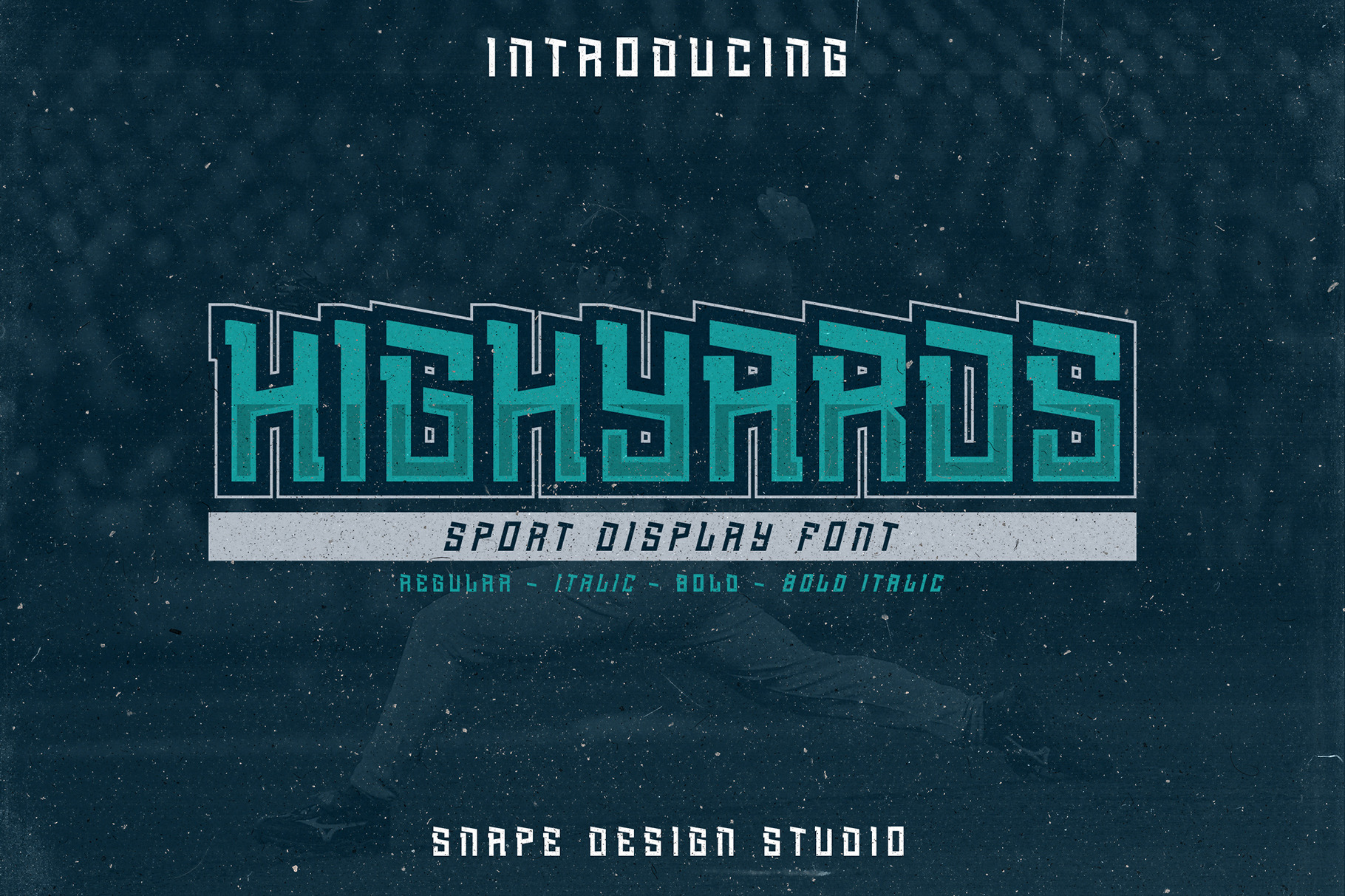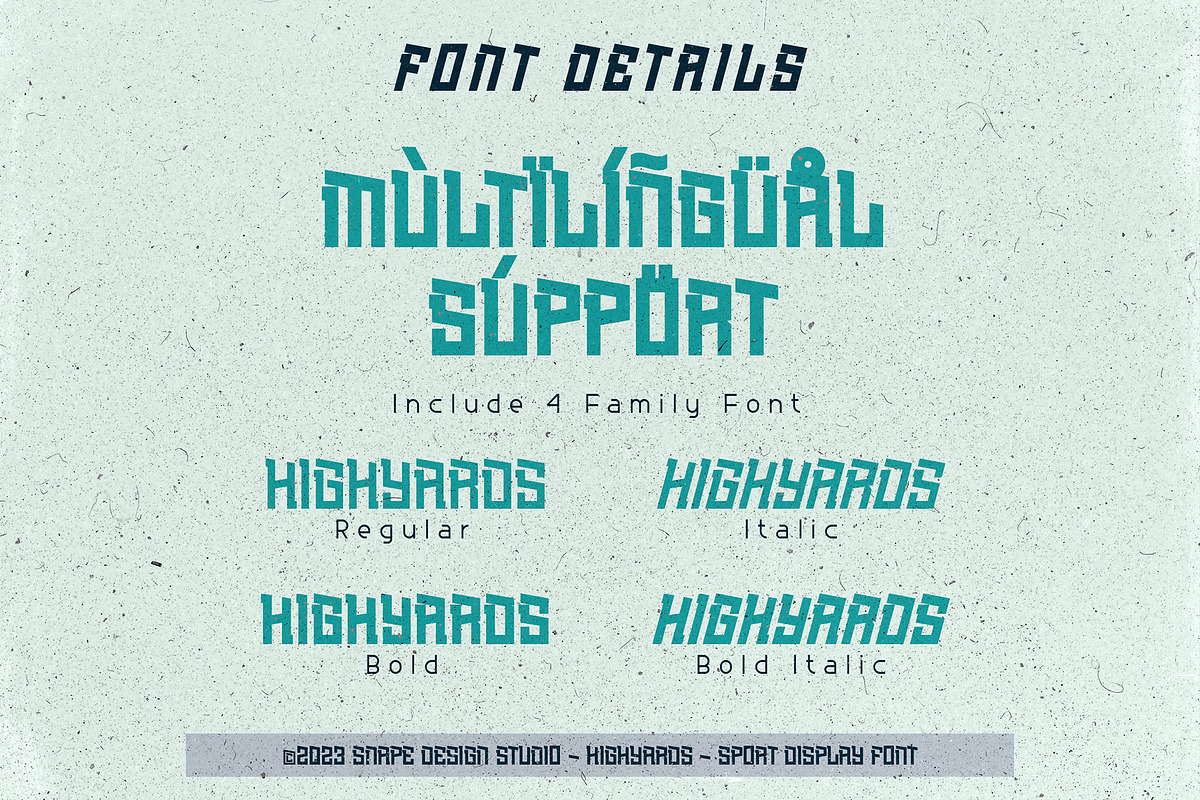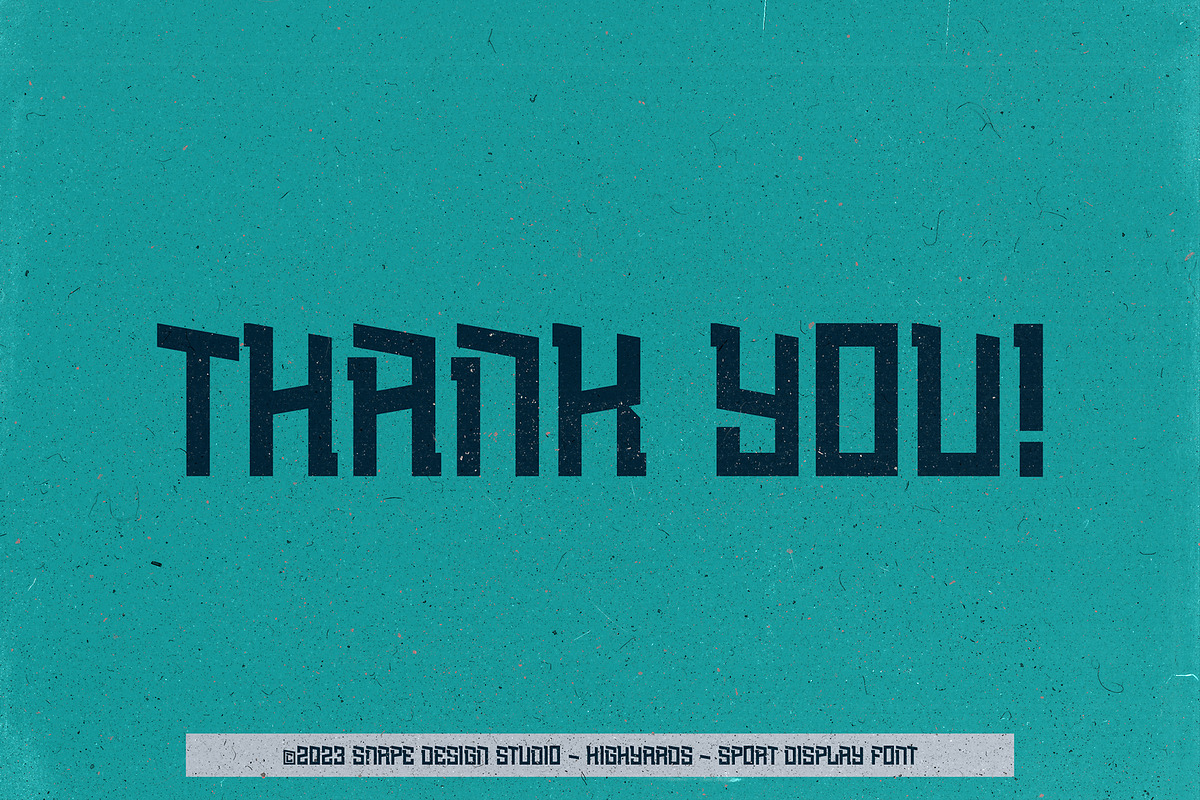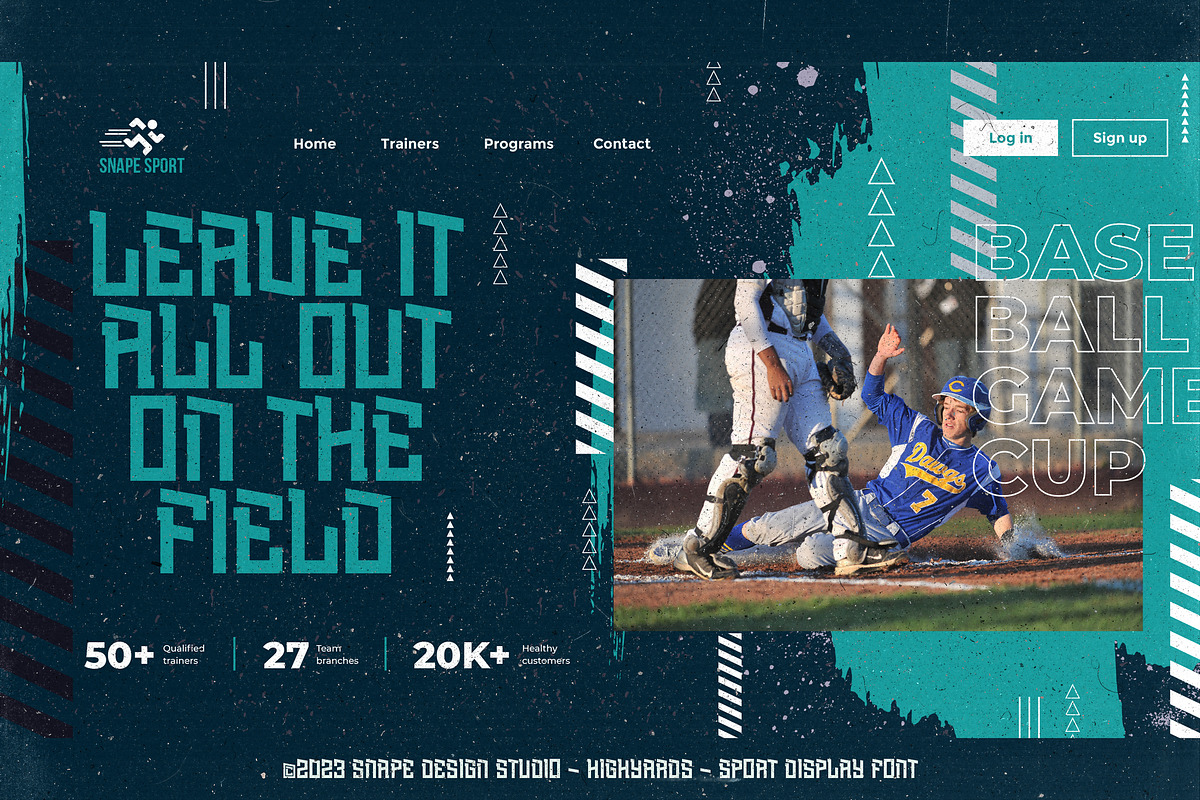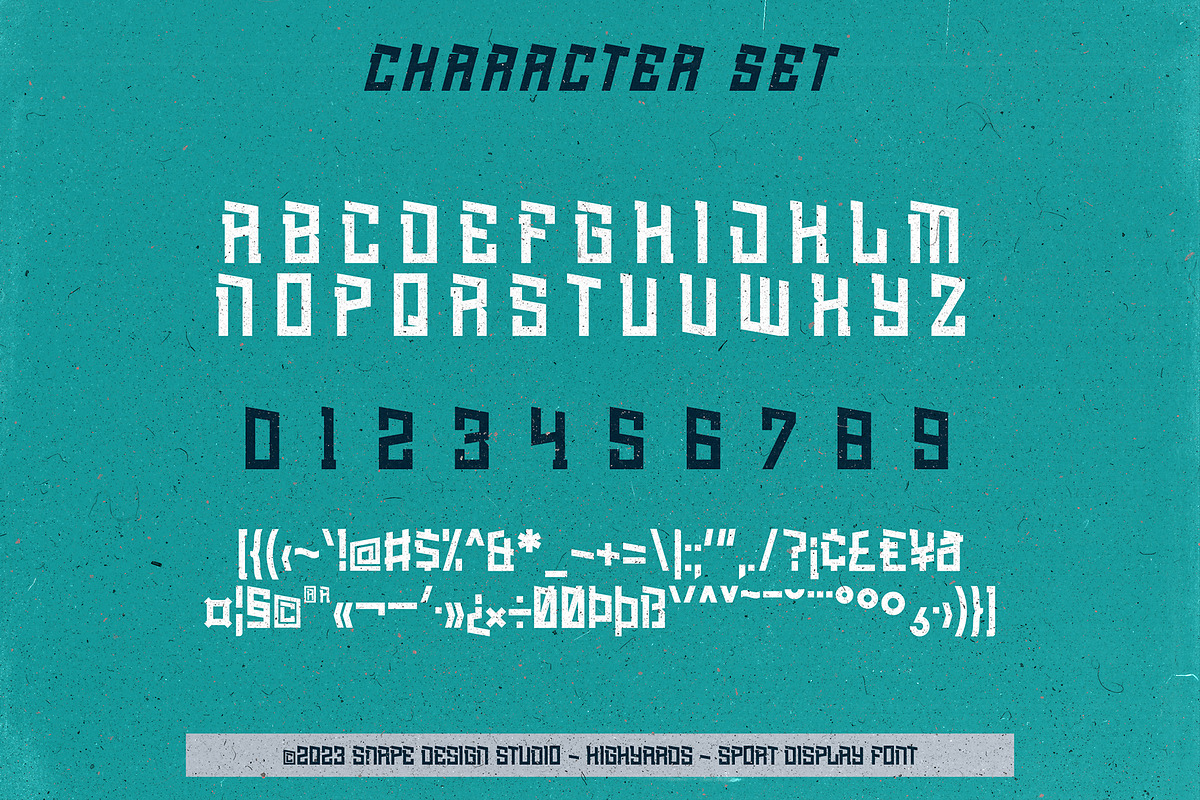
Highyards - Sport Font
Highyards is sport font, designed to draw attention and highlight any project that requires a bold feel, look powerful, created to add a vibrant touch to your sport-inspired designs. Suitable for sport design, team, jersey, league, movie, documenter, film, logo, poster, game, book cover, headlines, title and many more projects. Add this font to your creative ideas and notice how it will make them stand out!
FEATURES : Uppercase Lowercase Number Punctuation Multilingual
FAMILY FONT : Regular Italic Bold Bold Italic